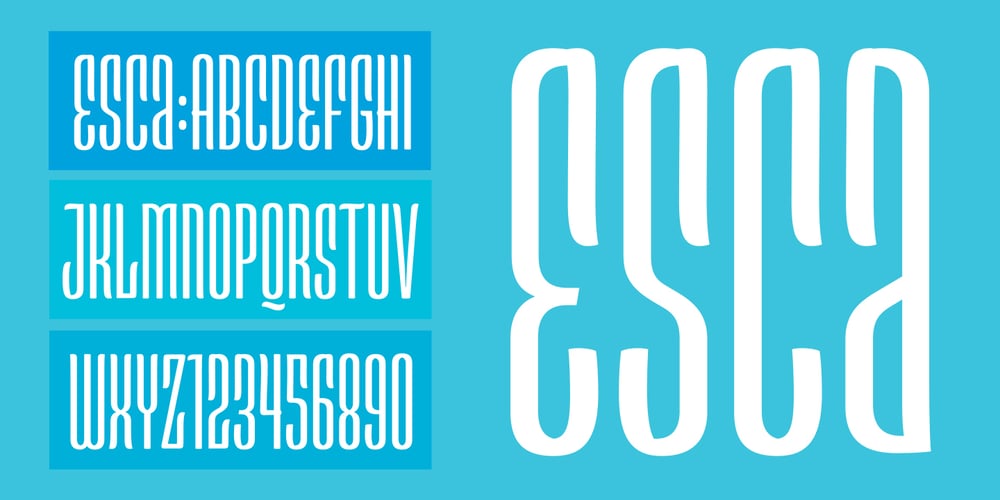
Esca
Esca font
Esca Font Family was designed by Jim Ford and published by Monotype. Esca contains 1 styles and family package options. Esca is a display typeface designed by Jim Ford with highly compressed proportions yet with a subtle calligraphic touch. This Lite version of the typeface was designed as part of a font marathon over the course of 3.5 days in Monotype’s NY office. The design started with the aim of fitting 4 letters onto one sheet of paper and the resulting typeface keeps that tight proportion. The Esca design is mixed case and is ideally suited for logos, short headlines, and album covers. It has a great architectural feel to it that makes it suitable in signage applications and large scale settings. Monotype is proud to support Room to Read’s work in literacy and girls’ education through our font marathon initiative.